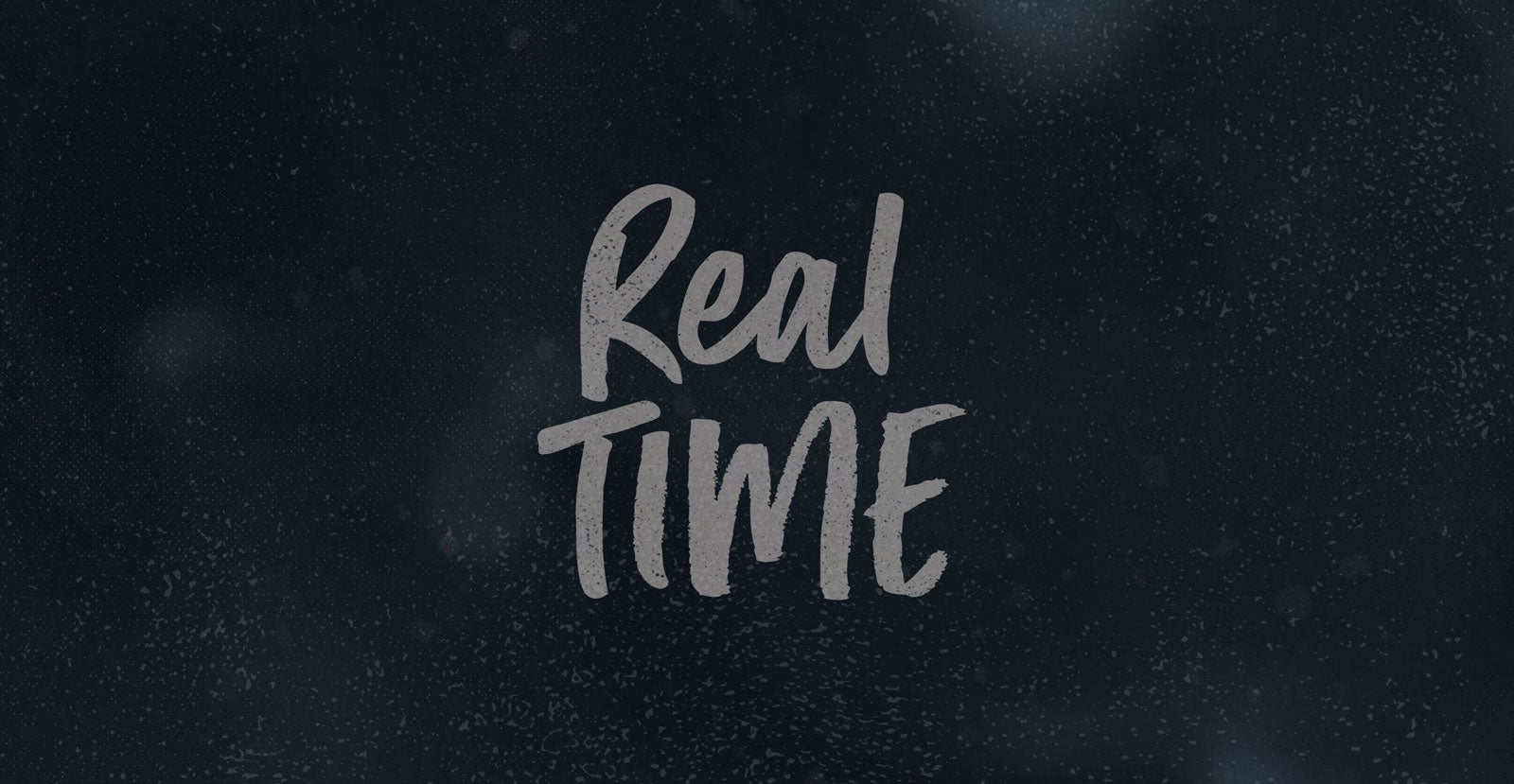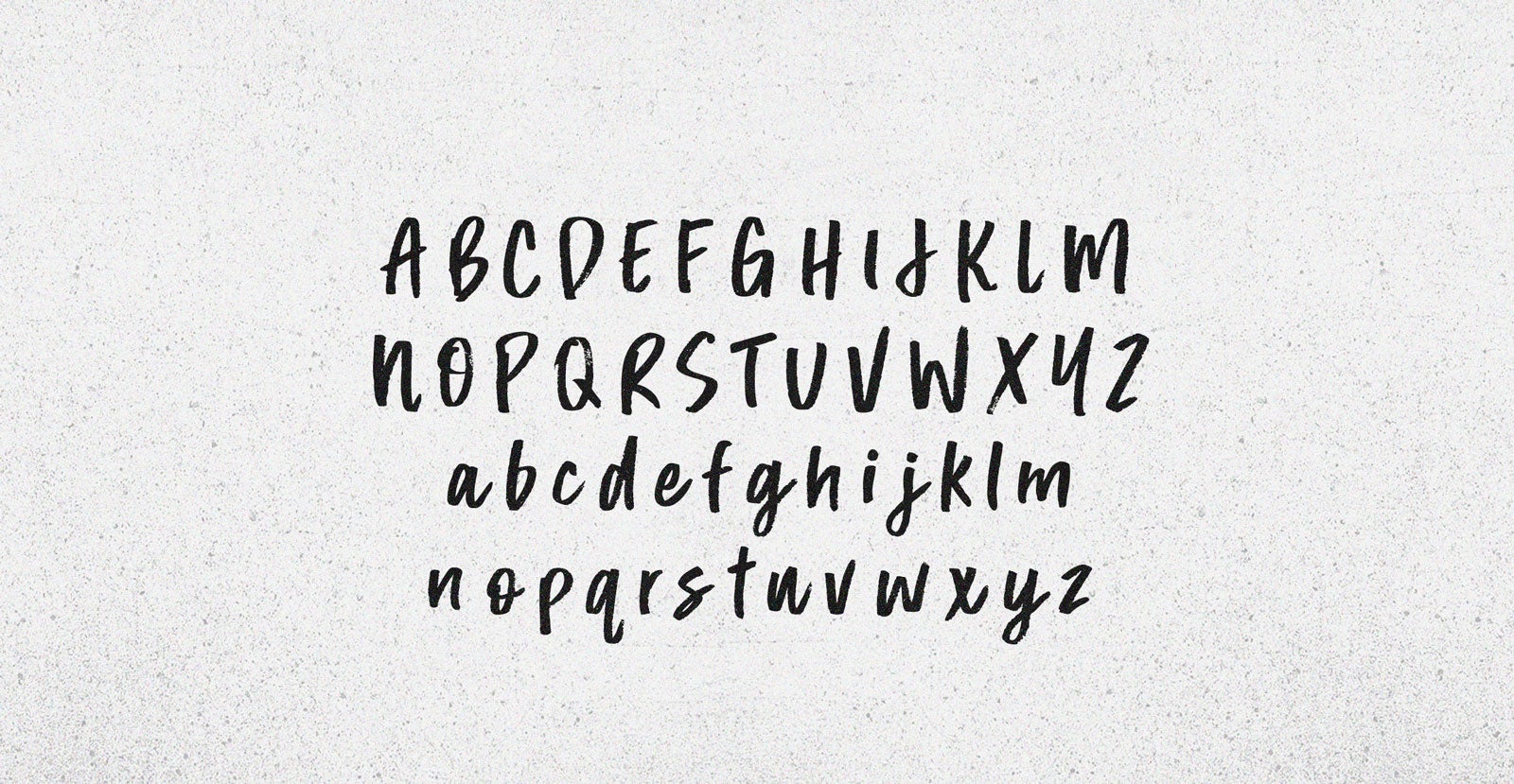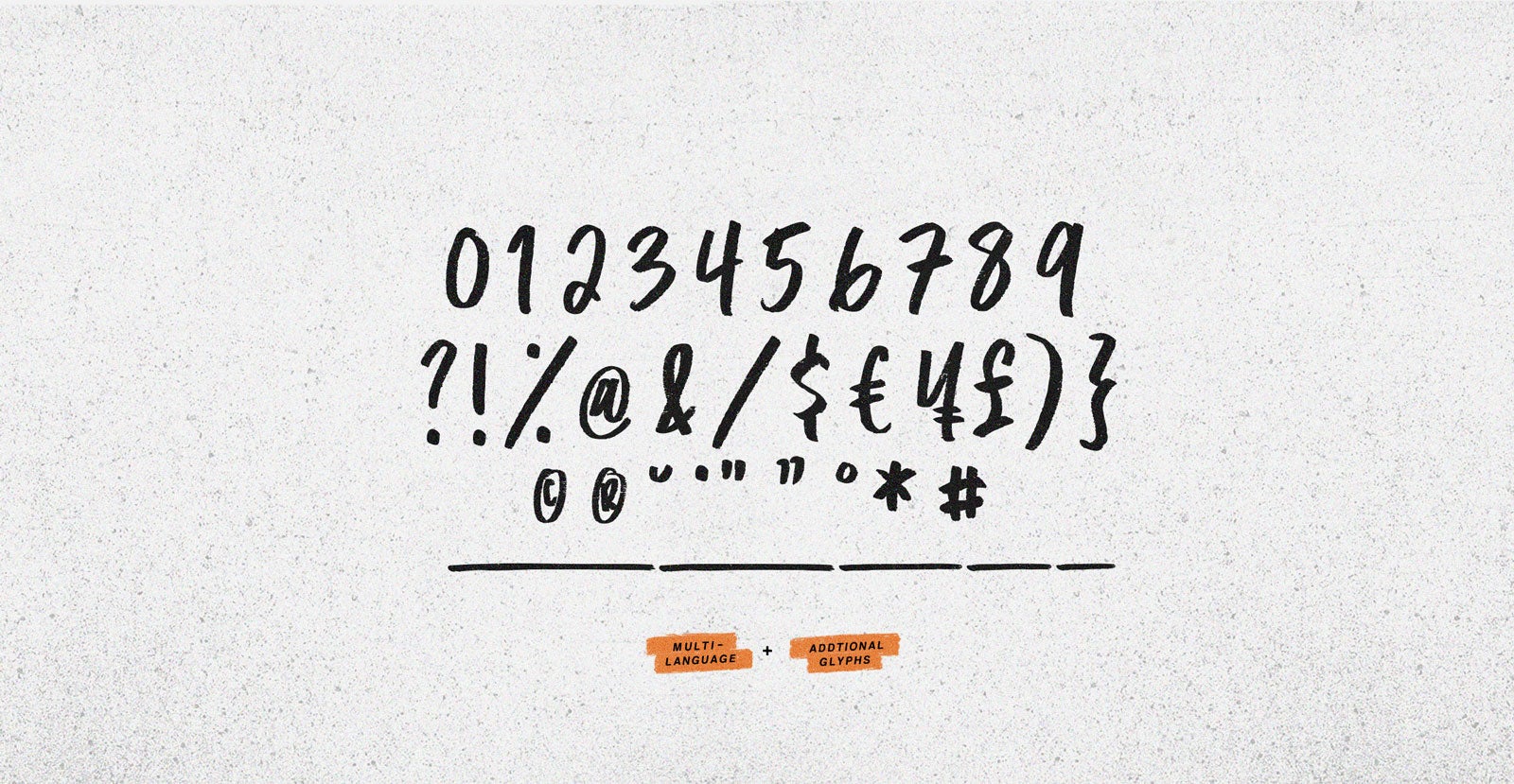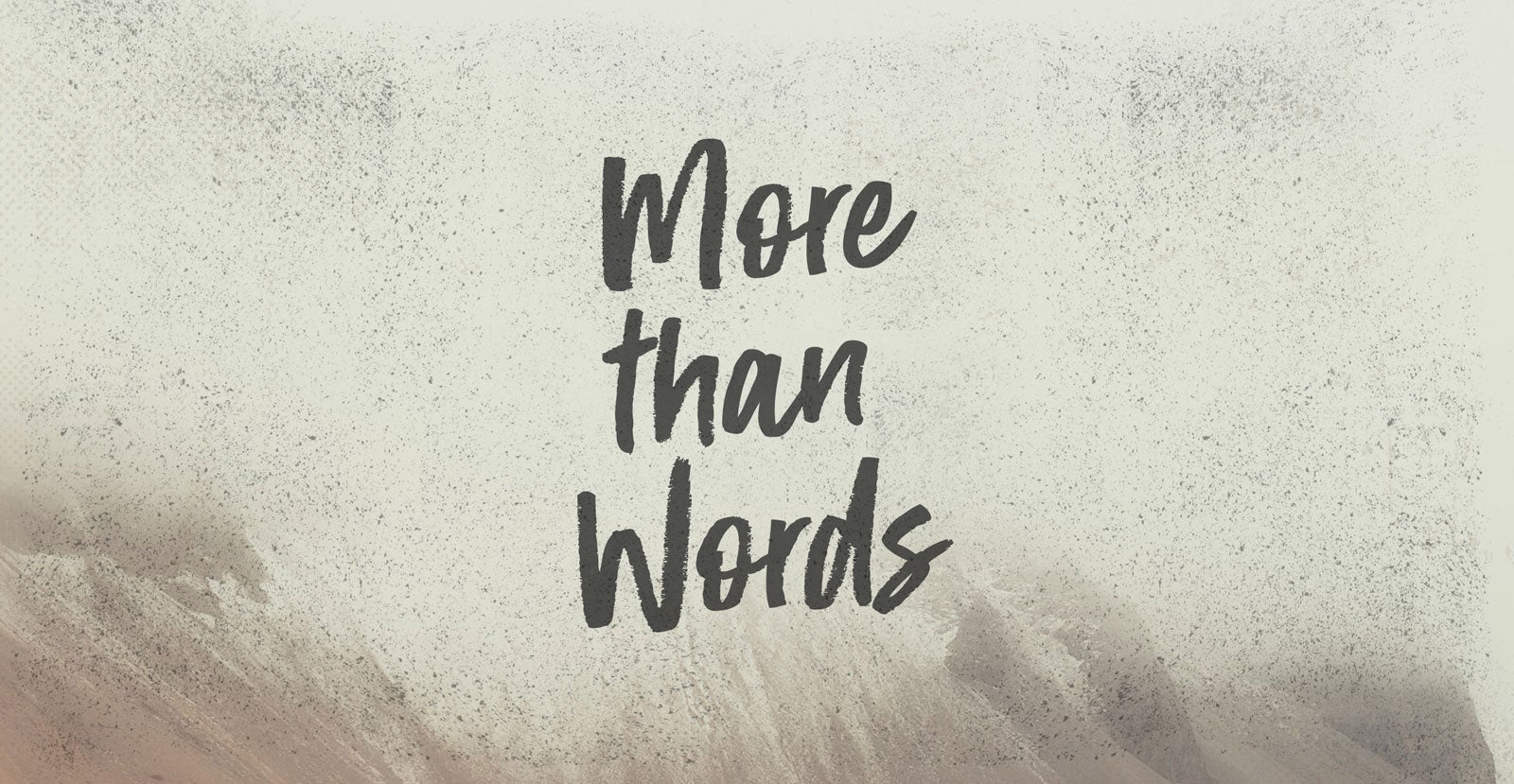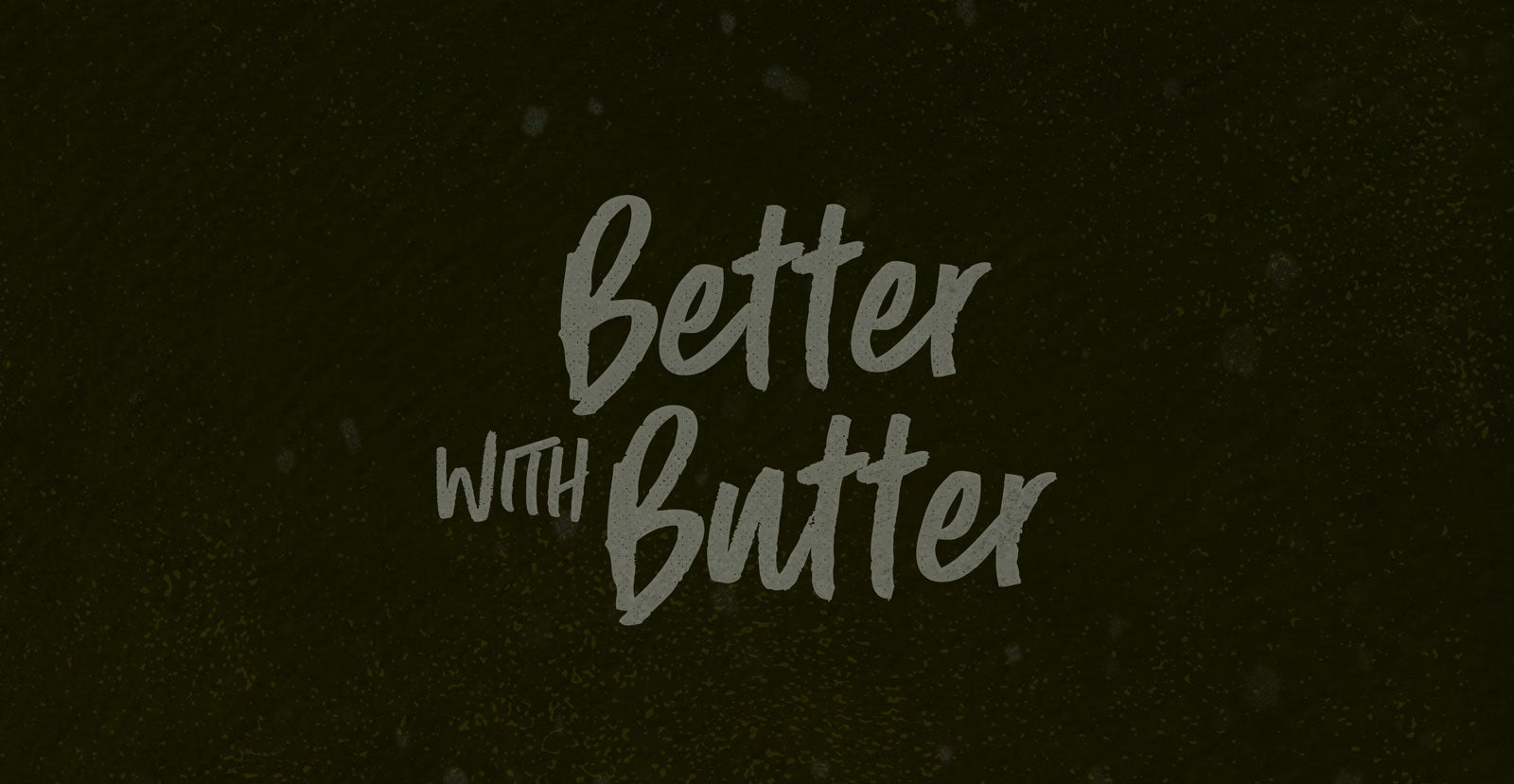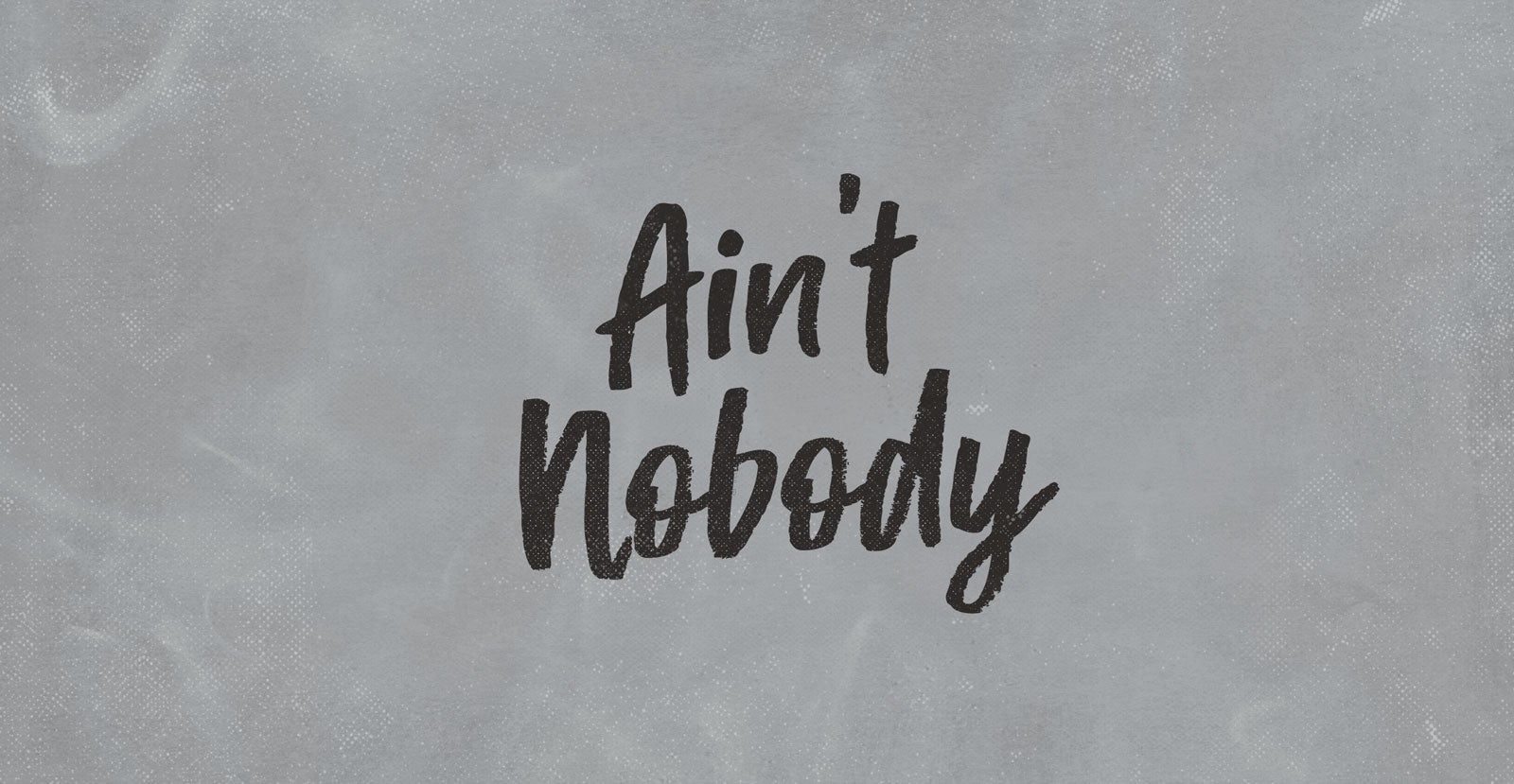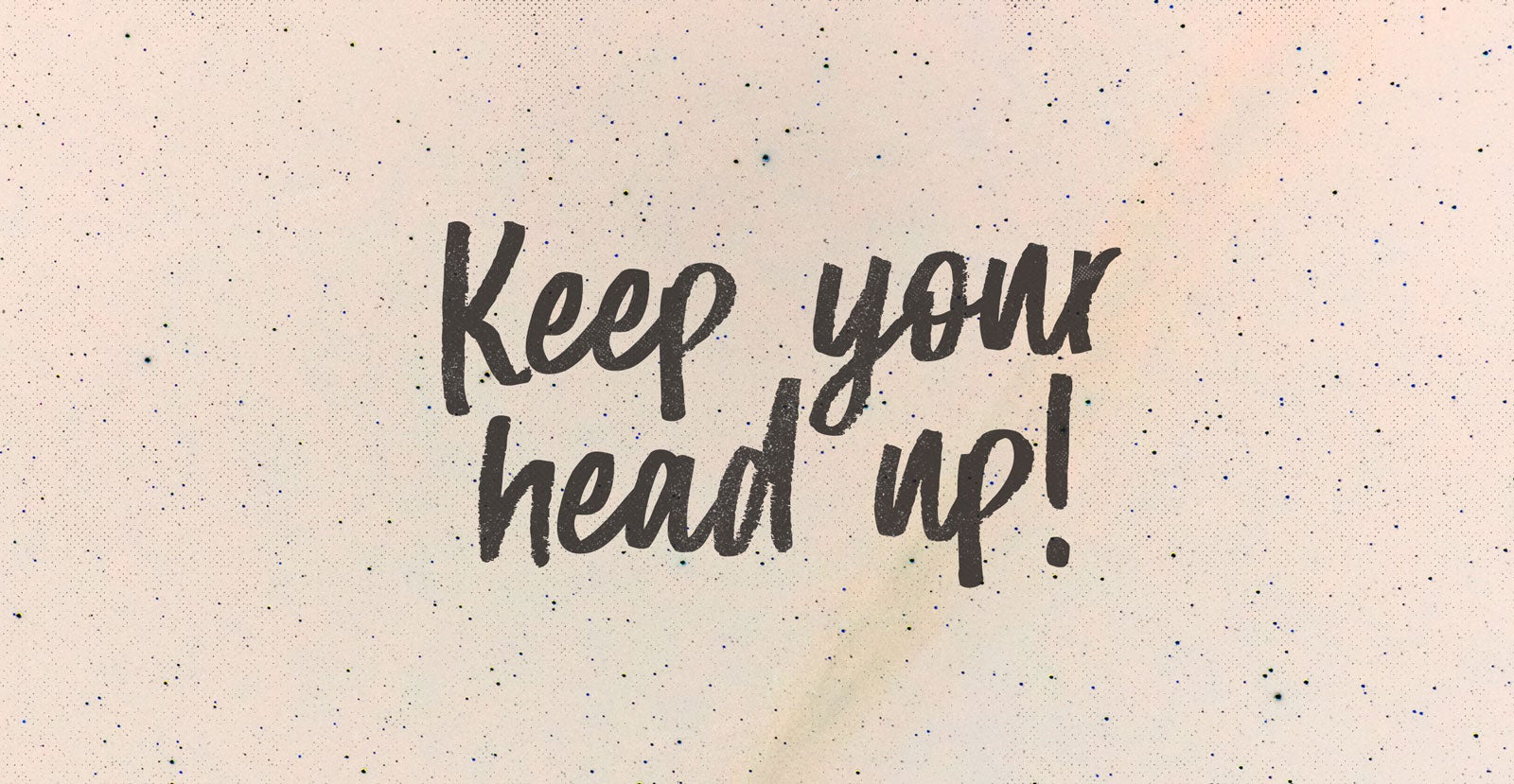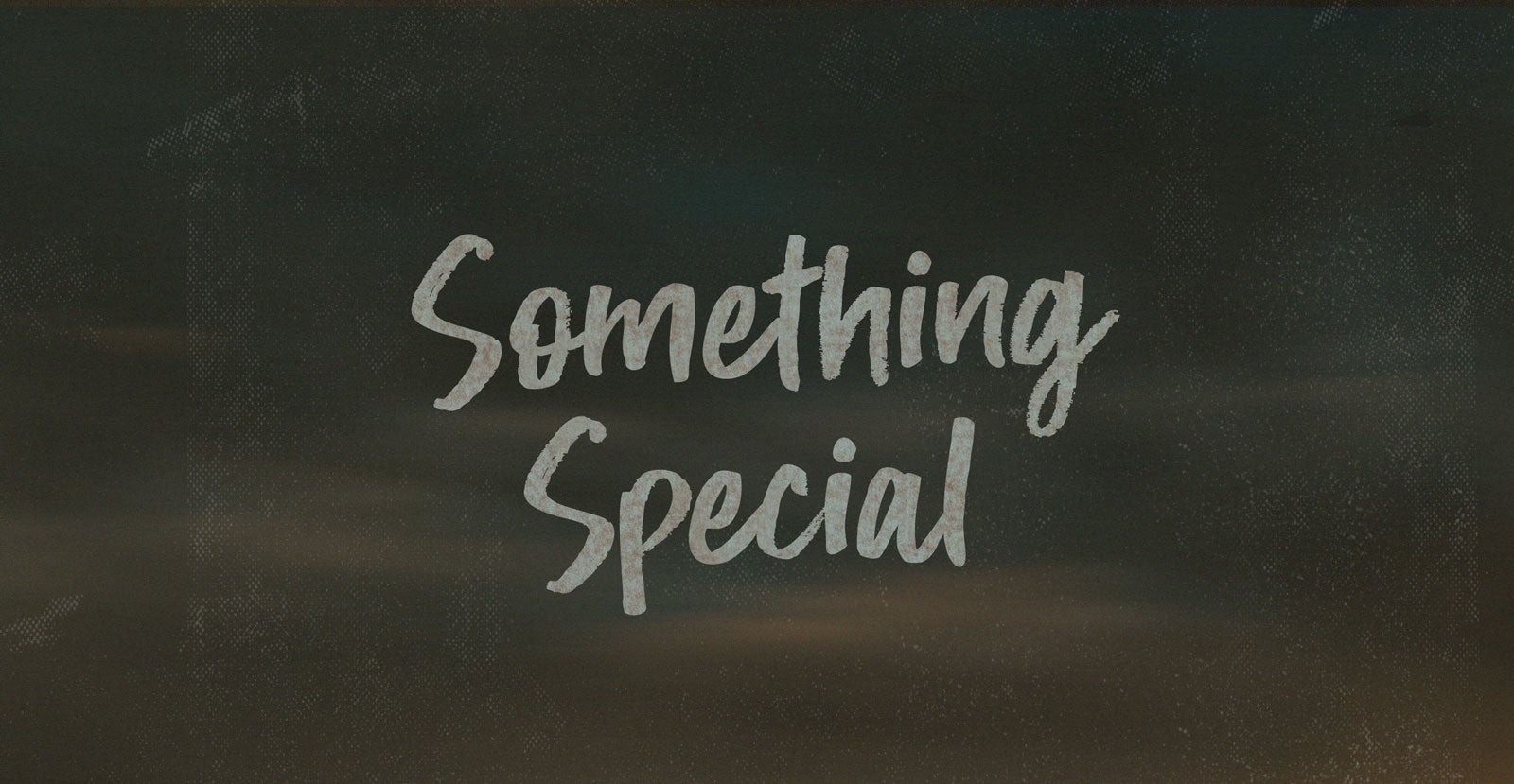
Real Time
Bending causality back to back, threading needle after needle—or the same needle—and the record skips. It’s lost-in-the-groove-time. It’s real-to-real for Real Time. It’s that time I lost the thread and got run through running back through the haystack.